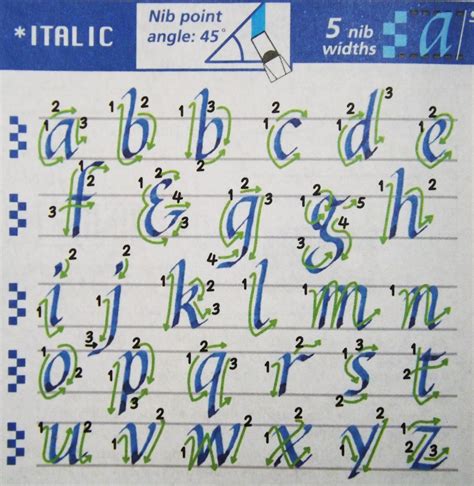
Unlocking The Secrets Of Italic Fonts: A Guide
Hey there, font fanatics and design dynamos! Ever wondered what makes italic fonts tick? Or maybe you’re just curious about how to make your text pop? Well, buckle up, because we’re about to dive headfirst into the fascinating world of italic fonts . We’ll unravel their history, explore their nuances, and discover how to use them like a pro. Get ready to transform your text from bland to brilliant!
The Genesis of Italics: A Historical Journey
Alright, guys and gals, let’s rewind the clock and travel back to the 16th century. That’s when we first saw the glorious birth of the italic font. It all began in Venice, Italy, thanks to the creative genius of Aldus Manutius, a visionary printer. He was a real trendsetter back in the day. Now, Manutius wasn’t just any printer; he was a master of efficiency. His goal? To create a typeface that would allow him to fit more text onto a single page. This was crucial, especially when you consider the cost of paper in those times. Think about it: printing was a painstaking process, and every sheet of paper was precious. So, Manutius set out to design a font that was compact and elegant. He collaborated with Francesco Griffo, a punchcutter, and together they created the first italic typeface. The font was initially based on the handwriting style of the time, known as chancery cursive . This handwriting style was characterized by its sloping letters, which were designed to flow smoothly across the page. This new typeface quickly gained popularity. It offered a unique aesthetic that was both stylish and functional. It was used primarily for printing smaller books, like poetry collections, because it saved space and was easy on the eyes. The italic font wasn’t just a space-saving trick, though. It was a statement. It was a way to add emphasis and elegance to printed materials. It’s safe to say Manutius and Griffo’s creation was a turning point in the history of typography, and its influence is still felt today.
The Evolution and Spread of Italics
As printing technology evolved, so did italic fonts. Different foundries began creating their own versions, each with its unique flair. Italics spread rapidly throughout Europe and beyond, becoming an essential part of the typographic landscape. In the early days, italics were often used for several things. They were a handy way to highlight words. Also, they were used for book titles, foreign words, and sometimes even for entire passages. The use of italics evolved. They began to be used for a wider range of purposes. Today, we still see italics used for emphasis, but also for things like: titles of books, films, and other works; scientific names of species; and in some cases, for direct quotes. The popularity of the italic font can be attributed to its versatility and its ability to add a touch of sophistication to any text. It’s a key part of the design arsenal.
The Anatomy of an Italic Font: Key Characteristics
Now, let’s get down to the nitty-gritty and take a closer look at what makes an italic font tick. Italics aren’t just regular fonts that have been tilted. Oh no, there’s a lot more to it than that! The defining characteristic of an italic font is its sloping angle . This angle usually ranges from 10 to 20 degrees, giving the letters a dynamic, flowing appearance. The way the letters are formed is also very important. Often, italic fonts are based on calligraphic forms, meaning they’re inspired by handwriting. This results in letter shapes that are more fluid and connected compared to their roman (upright) counterparts. Many italic fonts feature unique letterforms that are specifically designed for the italic style. These special characters add extra flair and visual interest. In some cases, the italic version of a font will have an entirely different design compared to its roman counterpart. The differences can range from subtle changes in the shape of the letters to more dramatic variations in the overall style. The goal is to create a design that’s easily distinguishable. These details are what make italic fonts stand out. It’s these subtle but significant differences that make italics so visually engaging.
Mastering Italics: Best Practices and Effective Usage
Alright, so now that we know the basics, let’s talk about how to use italic fonts effectively. Knowing when and where to use them is just as important as knowing what they are. Using them in the right way can instantly elevate your design.
The Golden Rules of Italic Font Usage
First things first: Use italics sparingly . Overusing them can make your text look cluttered and chaotic, defeating the purpose of emphasis. The key is to use them strategically. The aim is to draw attention to certain words or phrases. Italics are perfect for emphasizing key terms or phrases that you want to stand out. Think about those words that carry the most weight or the ones you want your readers to remember. They are also excellent for book titles, film titles, and other creative works . This is a standard typographic convention that helps to clearly distinguish these works from the surrounding text. Italics also come in handy when you’re using foreign words or phrases. This signals to your readers that the text isn’t in their native language and adds a touch of sophistication. Italics are also commonly used for scientific names of species . This is a critical convention in the scientific community. It helps to differentiate species names from the rest of the text. Finally, they’re super handy for direct quotes. Italics set off the quoted text from the rest of your writing, making it super clear who’s talking.
Combining Italics with Other Fonts: Design Considerations
When it comes to combining italic fonts with other fonts, you have some options, guys. You want to make sure the fonts complement each other, not clash. A good rule of thumb is to choose fonts from the same font family . This means they share similar design characteristics, making them more likely to work well together. Mixing fonts can be super effective. The trick is to ensure they have the same visual weight. Avoid combining fonts that are too similar. This can create a visual distraction. Make sure the fonts are distinct enough to be clearly different from each other. If you’re using an italic font for emphasis, make sure it’s not too similar to your body text. The contrast should be strong enough to grab the reader’s attention. Think about the overall tone and style of your design. The fonts you choose should align with that. If you’re going for a formal look, stick to classic fonts. If you’re after a more casual feel, you can experiment with more playful options. Consider the readability of the fonts. Some fonts are easier to read than others. Make sure the combination you choose is easy on the eyes. Choosing the right font combination is all about balance. The goal is to create a harmonious and visually appealing design.
Common Mistakes to Avoid with Italics
Let’s wrap things up by looking at some common mistakes people make when using italic fonts . Avoid these pitfalls to make sure your text looks its best.
- Overusing italics : As mentioned before, less is more. Overuse makes your text look cluttered. Use them sparingly, only where necessary. If you’re tempted to italicize an entire paragraph, think again. Instead, try bolding key words or phrases.
- Poor font choices : Choose fonts that complement each other. Avoid using italics that are too similar to your body text. The contrast should be strong enough to make the italicized text stand out. Try to mix and match from the same font family. It’ll make things look so much better.
- Ignoring context : Always consider the context in which you’re using italics. What message are you trying to convey? Is the italicized text appropriate for the surrounding content?
- Using italics for everything : Don’t use italics for everything, guys. They are not a one-size-fits-all solution. There are other ways to emphasize text, like bolding or using different font sizes.
- Forgetting about readability : Always prioritize readability. If an italic font is difficult to read, it’s not doing its job. Choose fonts that are clear and easy on the eyes.
By keeping these tips in mind, you’ll be well on your way to mastering the art of using italic fonts . Your text will not only be more visually appealing, but it will also communicate your message more effectively.
The Future of Italics: Trends and Innovations
The world of typography is constantly evolving, and italic fonts are no exception. The future holds many exciting possibilities. We can expect to see more innovative designs and interesting applications. Many new variations are created every year. The rise of digital typography has opened up a world of possibilities for designers. Digital fonts allow for greater flexibility and control over the design process. This has led to the development of new and unique italic fonts, pushing the boundaries of what’s possible. As technology continues to advance, we’re likely to see even more sophisticated and dynamic italic fonts that can adapt to different screen sizes and devices. The integration of artificial intelligence and machine learning is also starting to influence font design. AI algorithms are being used to generate new font styles and to optimize existing fonts for readability and legibility. This will continue to change the way we design and use fonts. It is very exciting!
The Role of Italics in Modern Design
In modern design, italic fonts continue to play a crucial role. They are used in a variety of applications, from websites and apps to print materials and branding. Italics add emphasis, personality, and visual interest to designs. In web design, they are often used for: call-to-actions, quotes, and navigation elements. In print, they are commonly used for: headlines, subheadings, and captions. As design trends evolve, so does the way we use italic fonts. Designers are constantly experimenting with new and creative ways to incorporate them into their work. One trend is the use of variable fonts . This allows designers to dynamically adjust the weight, width, and slant of the font, giving them greater control over the design. Another trend is the use of animated fonts . These add a dynamic element to the text, making it more eye-catching and engaging. So, the role of italics in modern design remains strong. They are a powerful tool that, when used effectively, can greatly enhance the overall visual appeal and effectiveness of any design.
Key Takeaways and Final Thoughts
So, there you have it, folks! We’ve covered the history, usage, and future of italic fonts . Italics are an essential part of the design toolkit, capable of adding emphasis, elegance, and visual interest to any text. Always remember to use them sparingly, choose fonts wisely, and consider the context of your design. By following these principles, you can harness the power of italics to create stunning and effective designs. The world of typography is vast and ever-changing. Keep experimenting, keep learning, and keep having fun! Now go forth and create some amazing designs! Remember: italics, when used with skill, can really make your text shine. Happy designing!